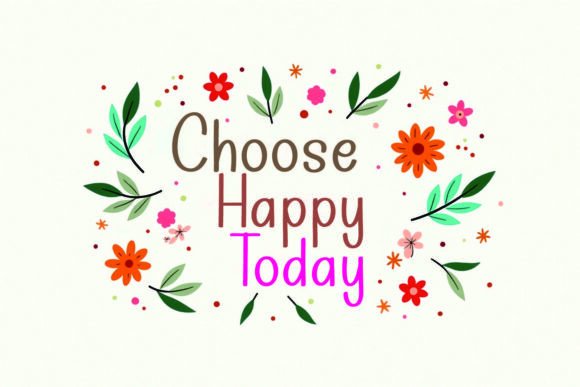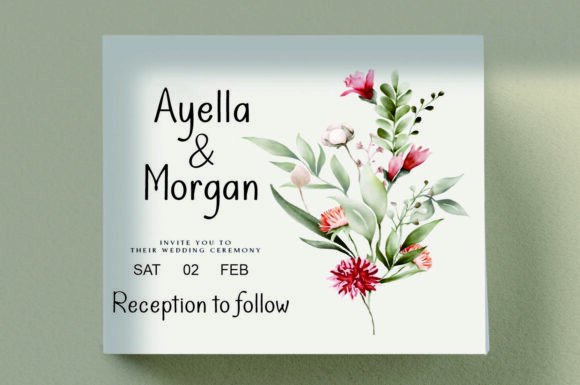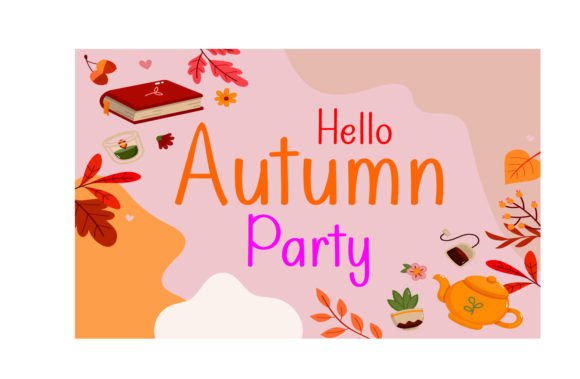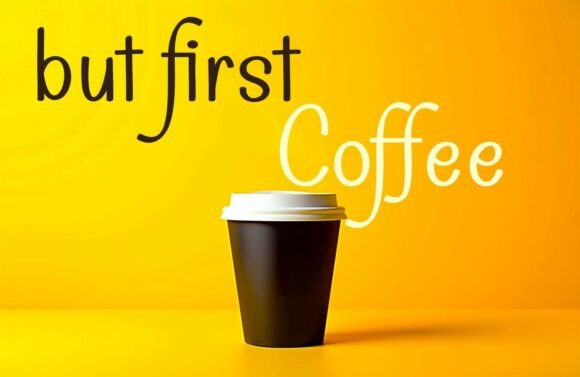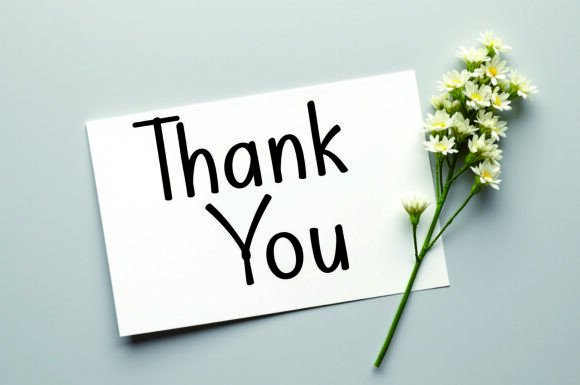
Introduction to Jofie Font
Have you ever stumbled upon a font that makes your design project feel like a breath of fresh air? For many designers, that moment comes when they discover the perfect combination of elegance and sophistication. For me, that moment came when I stumbled upon the Jofie Font – a lovely and delicate script font that exudes class and refinement.
As a designer, I can attest to the value of having a high-quality design resource like the Jofie Font in your arsenal. Not only does it provide a beautiful and refreshing look to your creative project, but it also adds a touch of professionalism that’s hard to replicate with other fonts. Whether you’re working on a branding project or a website design, the Jofie Font is sure to make your design stand out.
And the best part? This stunning font is available for free download, making it an excellent addition to any designer’s toolkit. With its transparent background and elegant script style, the Jofie Font is the perfect design resource for anyone looking to elevate their creative project to the next level.
Key Features of Jofie Font
- High-quality design with a transparent background, ideal for creative projects and presentations.
- Includes a comprehensive character set, including uppercase and lowercase letters, numbers, and special characters.
- Designed to be highly legible, with a clear and modern aesthetic suitable for a wide range of creative projects.
- Supports a wide range of languages and character sets, making it a versatile design resource for global audiences.
- Resolution-independent, ensuring that the font remains crisp and clear at various sizes and resolutions.
Honest Review: Jofie Font
I recently came across the Jofie Font and I must say it’s a great addition to any designer’s toolkit. This high-quality font is perfect for creative projects where you want to add a touch of sophistication and elegance.
- ✨ The Jofie Font has a beautiful, modern design that’s perfect for creating eye-catching headings and titles.
- ✨ The font is highly versatile and can be used for a wide range of creative projects, from branding to publishing.
- Limitations:
- ⚠️ The font may not be suitable for projects that require a more traditional or formal look.
- ⚠️ The font’s design may not be suitable for very small font sizes.
Overall, I’m really impressed with the Jofie Font and I would definitely recommend it to any designer looking for a high-quality, versatile font.
Jofie Font is a high-quality design resource that offers a unique and elegant touch to any creative project. This free download features a transparent background, making it easy to customize and integrate into various design elements.
Common Use Cases for Jofie Font
Jofie Font is ideal for a variety of creative projects, including logos, business cards, brochures, and social media graphics. Its elegant and sophisticated design makes it perfect for any project that requires a touch of sophistication and style.